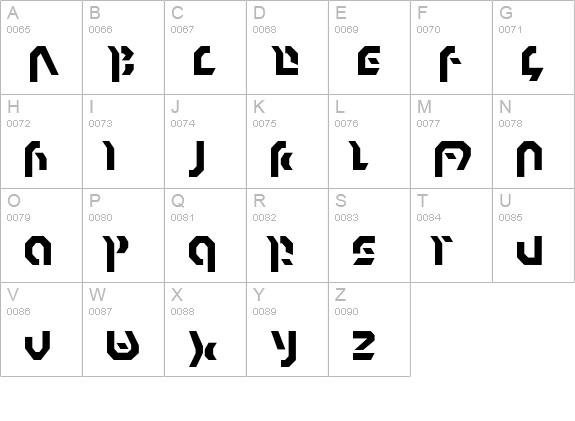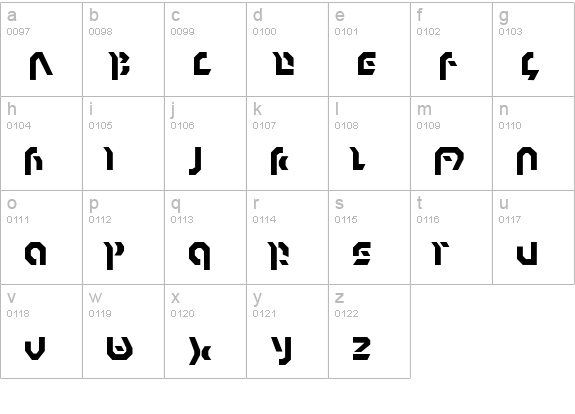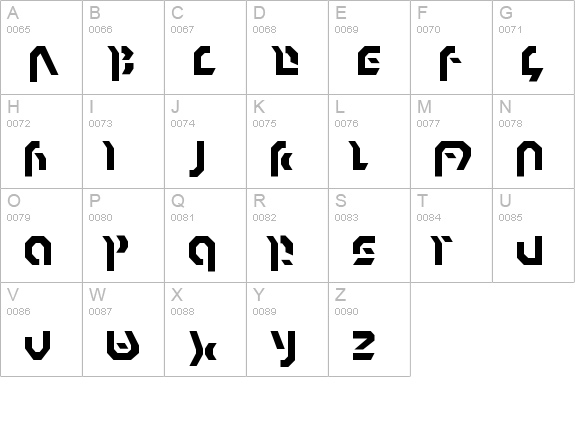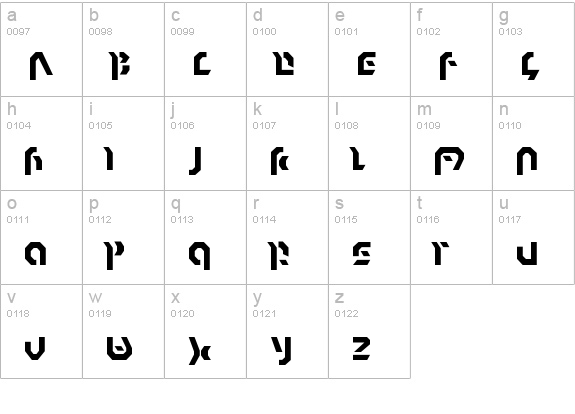
Omnicron Normal Font Details
Omnicron Normal is the standard, neutral variant in the Omnicron typeface family \xE2\x80\x94 well suited to general body text, paragraphs, and standard typographic work.